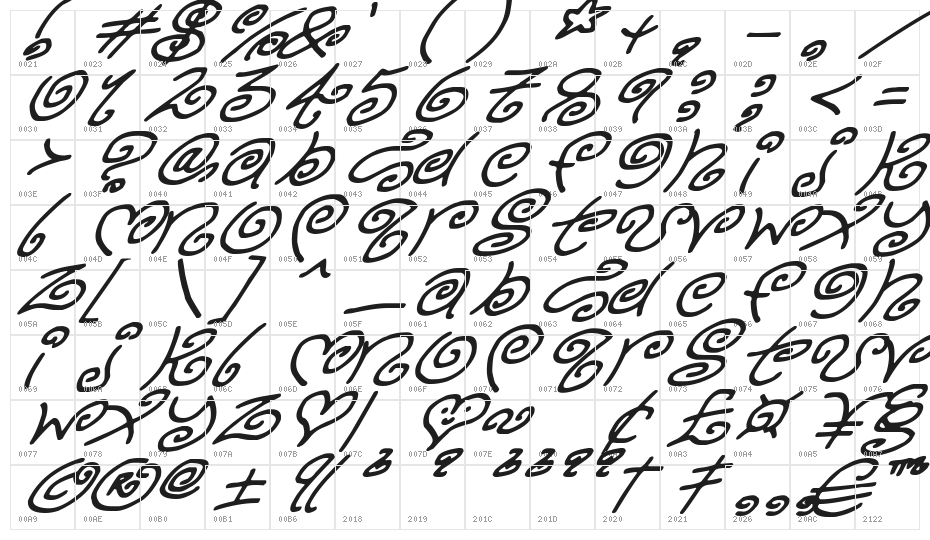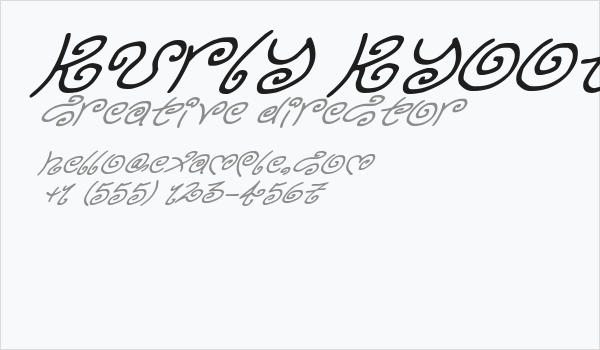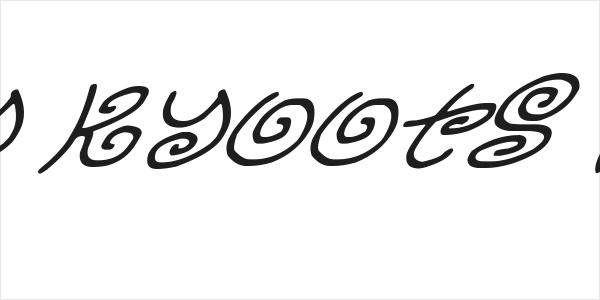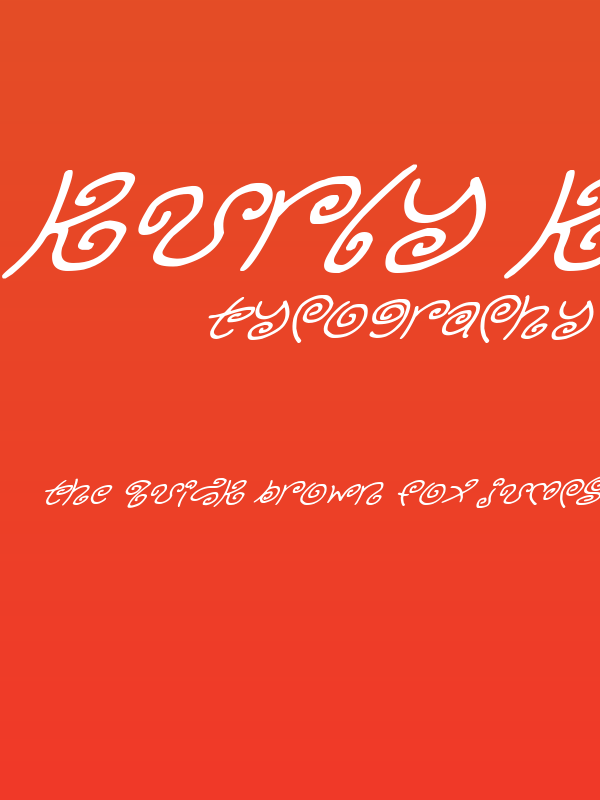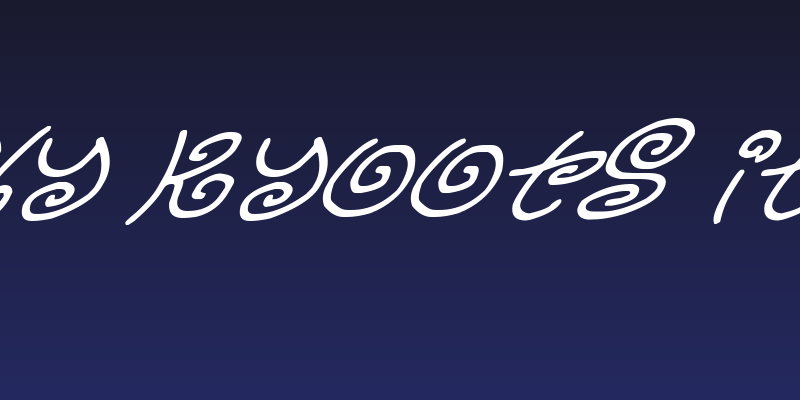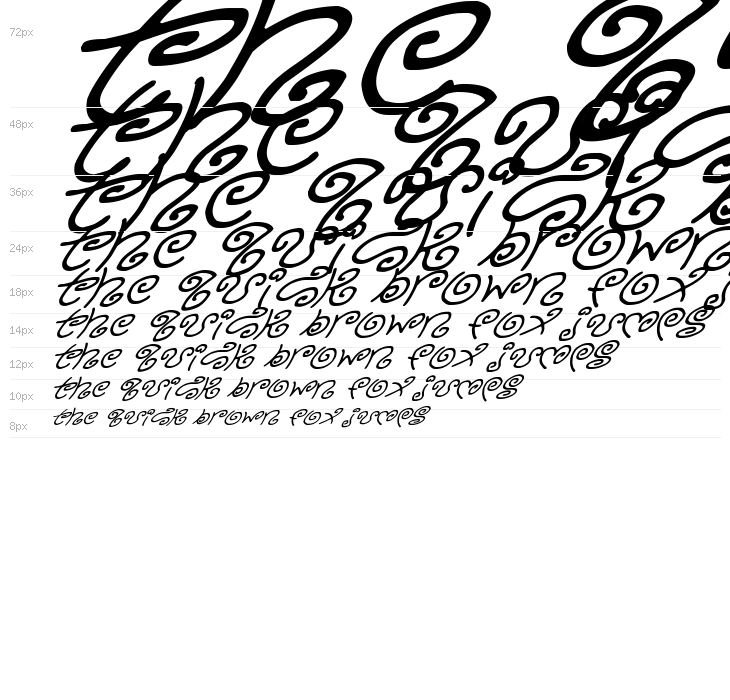
Kurly Kyoots Italic Font
Kurly Kyoots Italic Description
This font exhibits a playful and whimsical style, characterized by its curly and flowing letterforms. Each character is designed with a unique flair, featuring loops and swirls that give it a lively and dynamic appearance. The font maintains a consistent italic slant throughout, enhancing its sense of movement and energy. The uppercase and lowercase letters are distinct yet harmonious, with the uppercase letters being slightly more elaborate. Numbers and special characters are crafted with the same attention to detail, ensuring a cohesive look across all glyphs. The overall design is both decorative and legible, making it suitable for creative and informal applications.
| Proposed Projects | Ideal for children's books, playful branding, greeting cards, and creative invitations. |